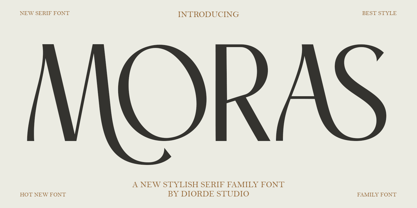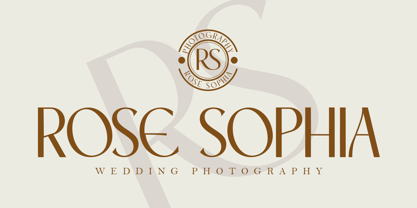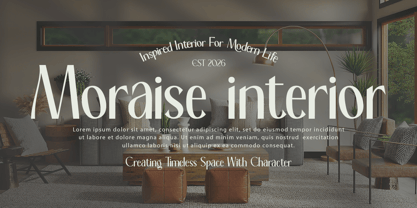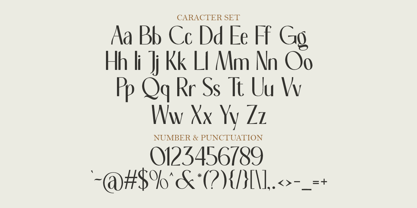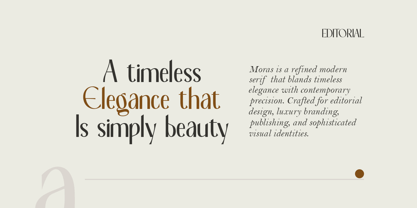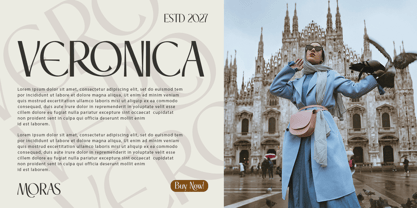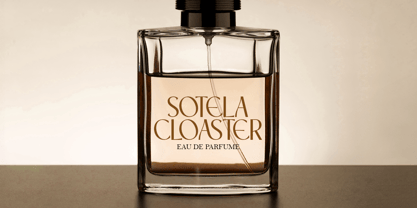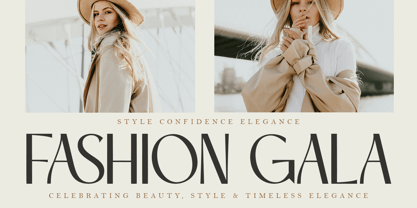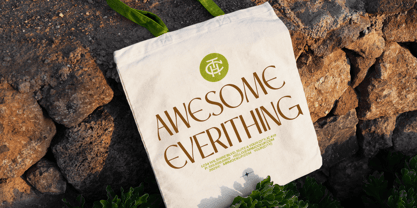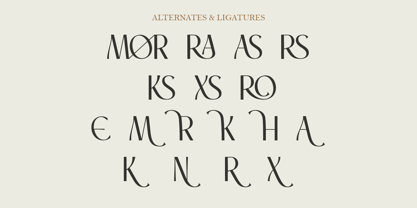
Moras
by Deorde Studio
The Moras Font Family was designed by Teuku Syarkawi and published by Deorde Studio. Moras contains 8 styles and family package options. More about this family
Moras captures the essence of contemporary elegance, blending fluid motion with structured sophistication to create a visual experience that is both timeless and strikingly new. It is a typeface designed for those who demand their words carry the weight of fine art.
Inspired by the intersection of ethereal gradients and neoclassical sculpture, this font draws its strength from the balance of sharp terminals and soft, sweeping curves. It evokes an atmosphere of a futuristic gallery where classical history meets the refined digital age.
Exuding an aura of prestige, this modern serif display provides a luxury typography solution that commands attention through its high-contrast serif characteristics and editorial font precision. It is built to maximize branding impact in any high-stakes design environment.
Perfectly aligned with the modern serif trend, this typeface answers the call for editorial display fonts that offer a distinct voice. It stands at the forefront of character-driven typography, catering to designers who seek to break away from generic minimalism.
Designers: Teuku Syarkawi
Foundry: Deorde Studio